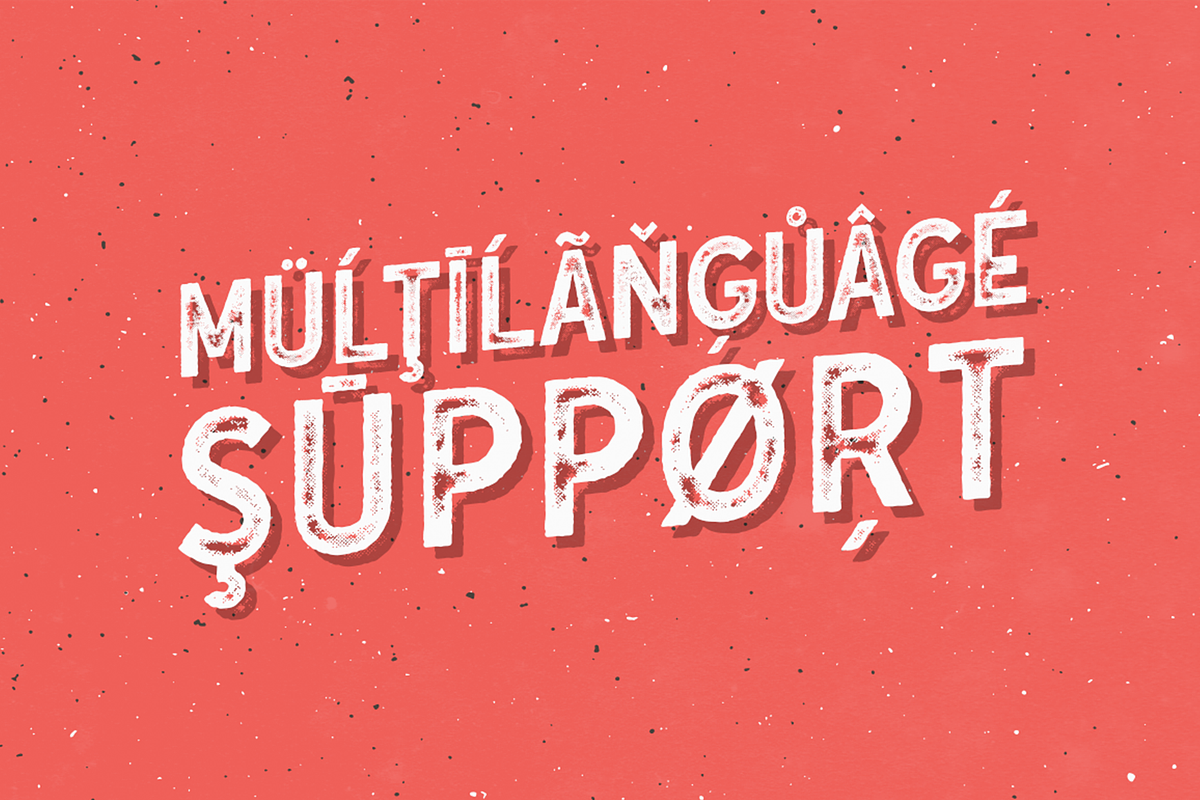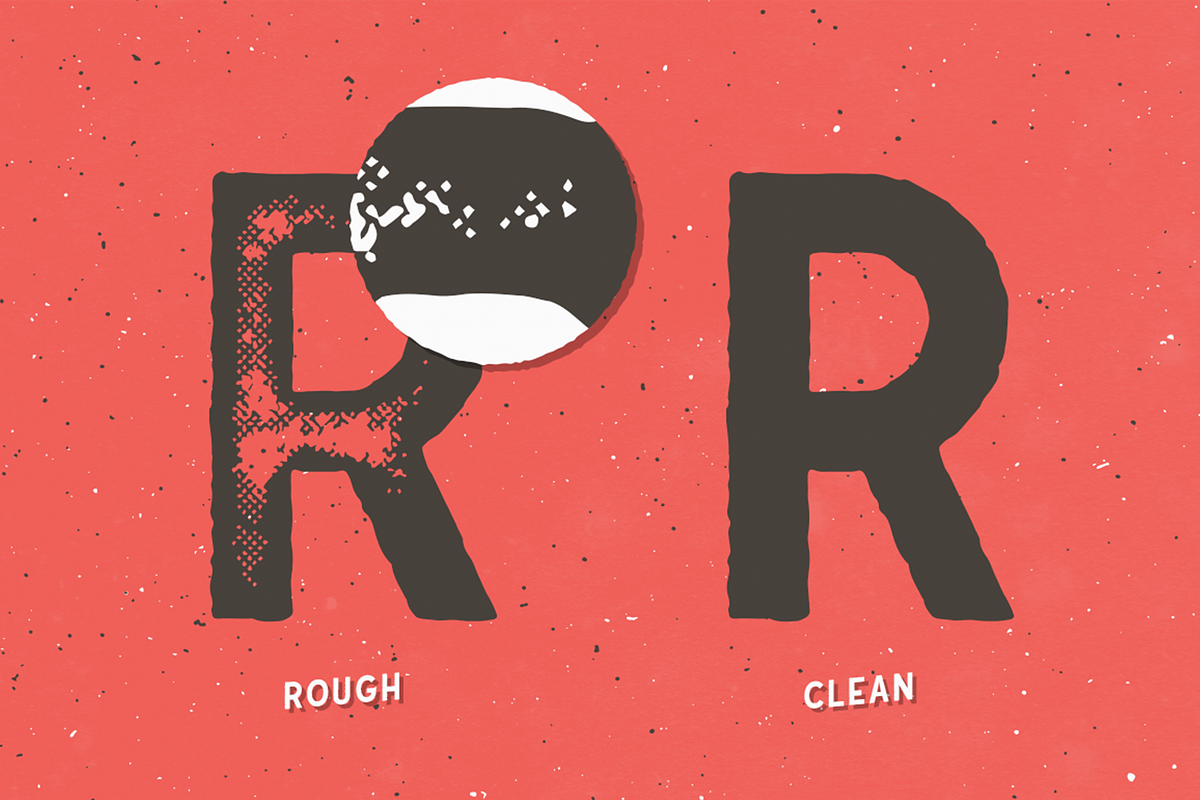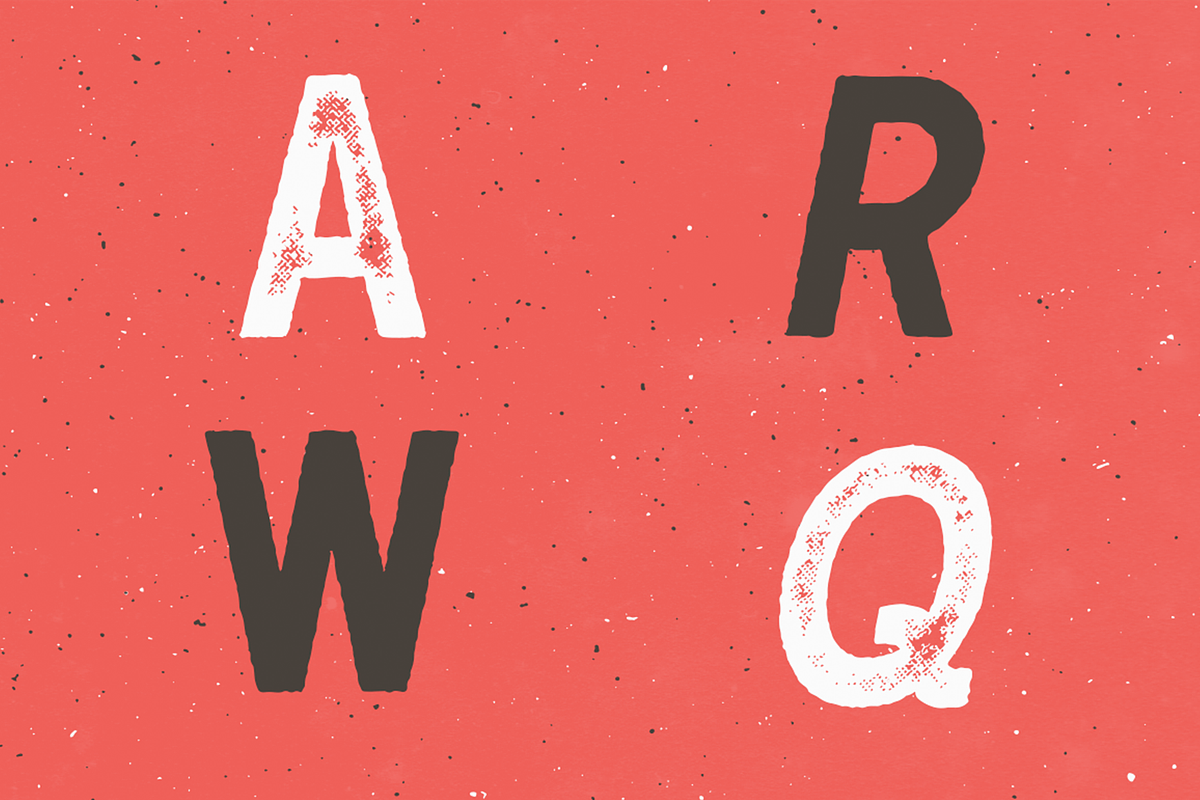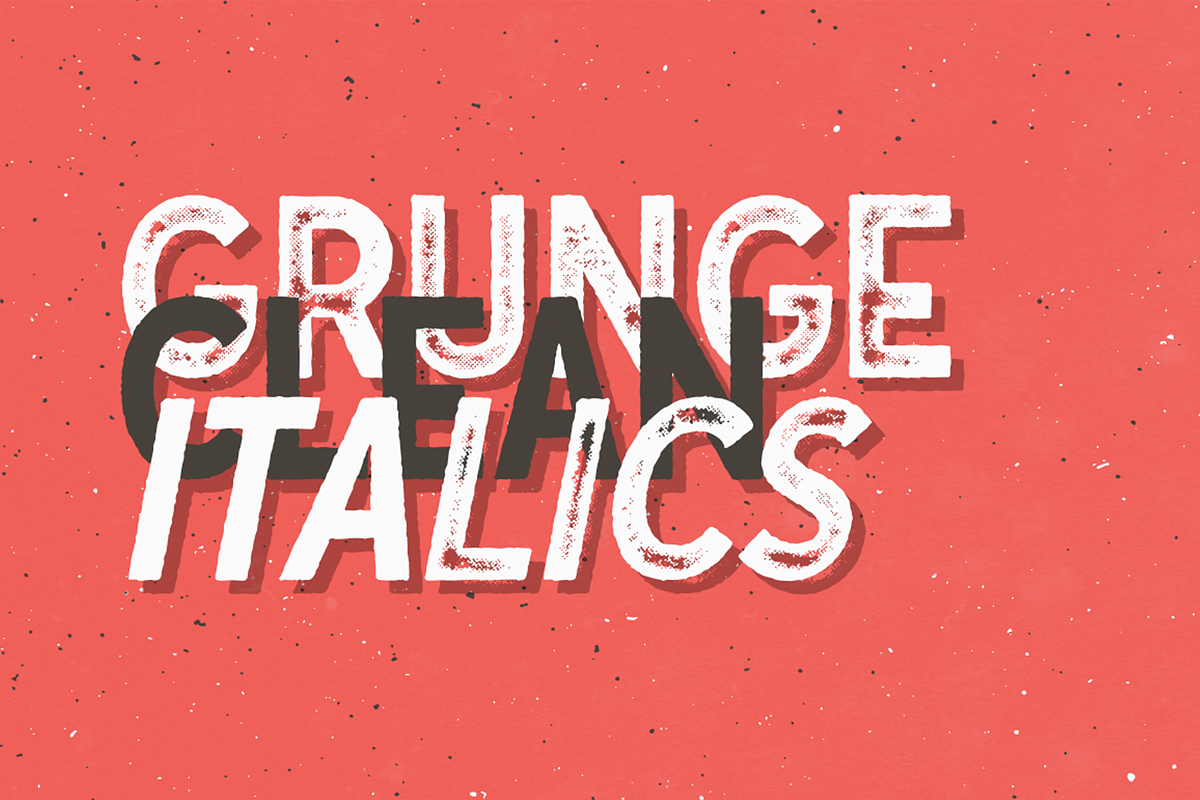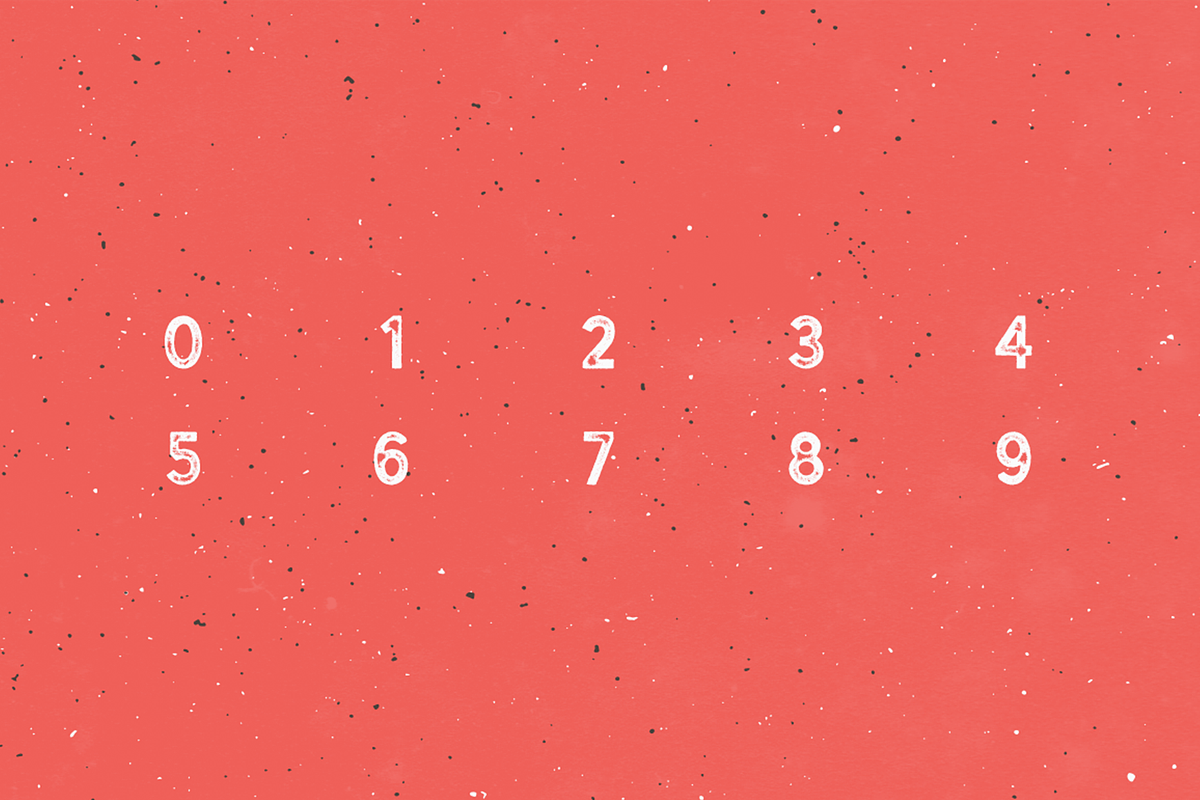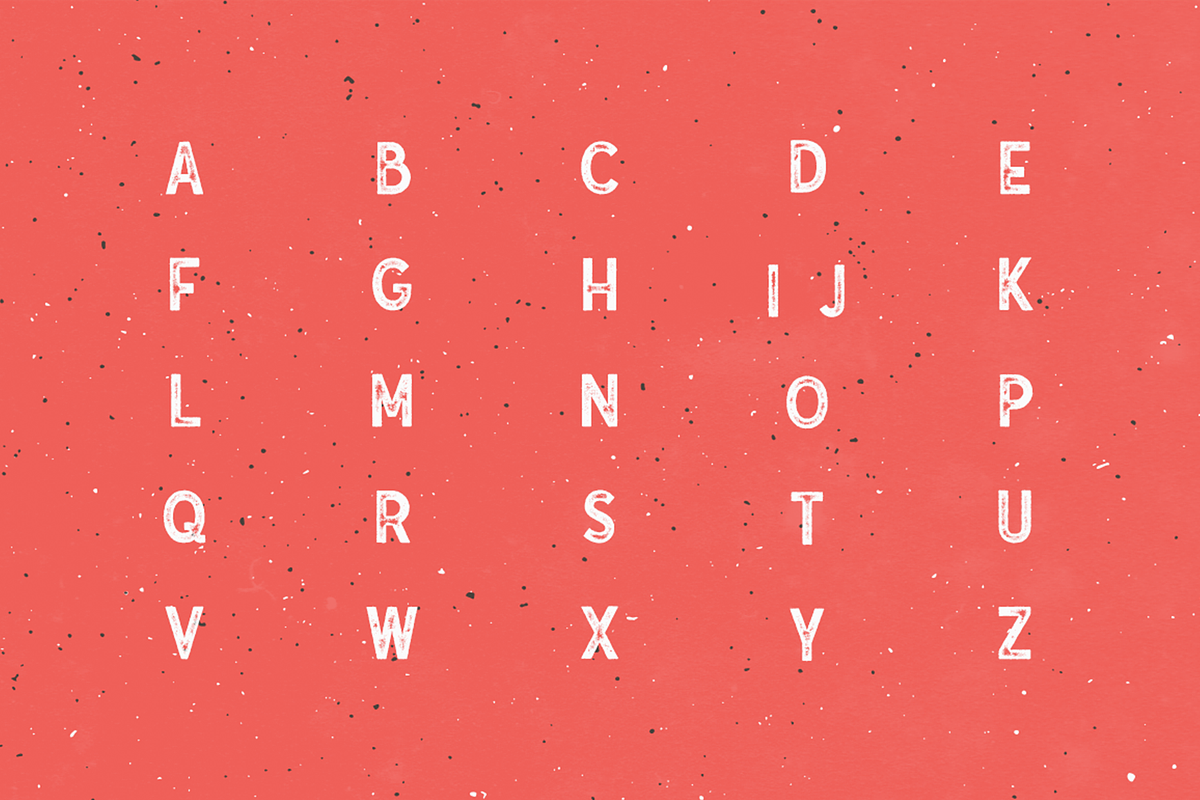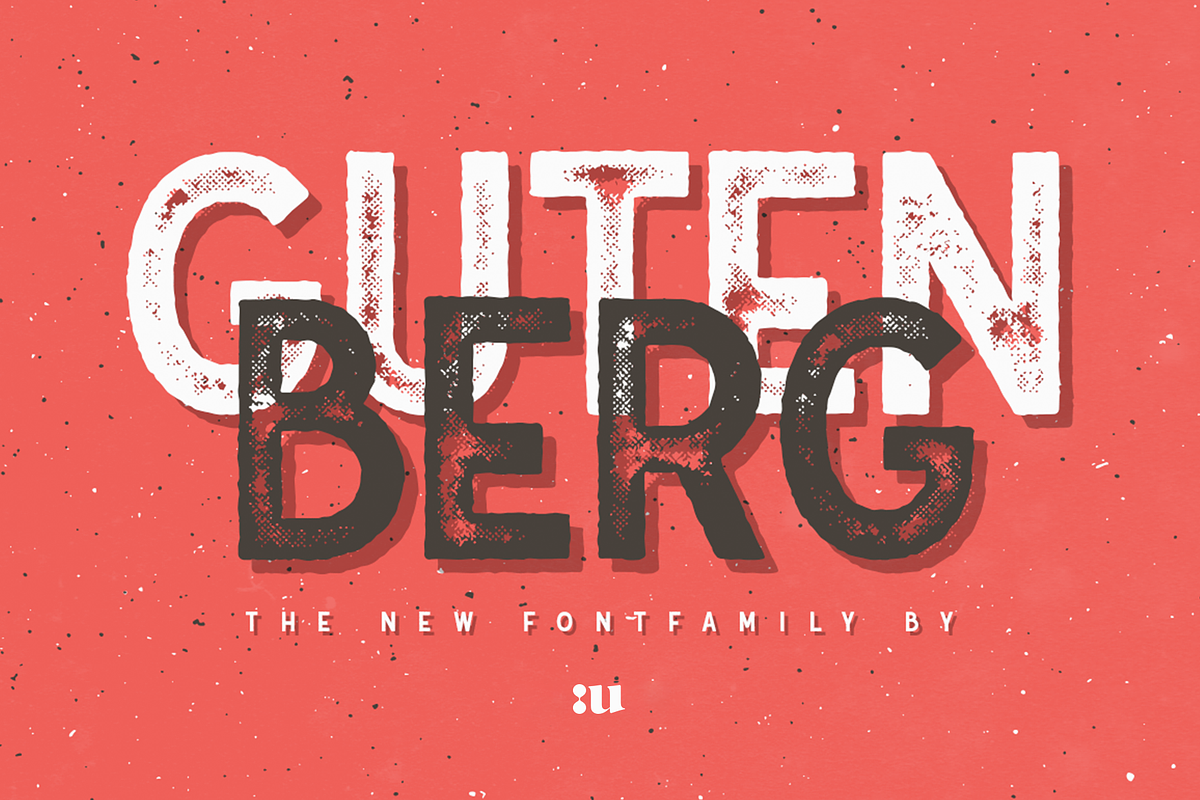
Gutenberg - Font Family
Gutenberg - Font Family by Unio Designs is a font selected for branding, posters, packaging, typography.
- Gutenberg Clean Regular
- Gutenberg Regular
- Gutenberg Italic
- Gutenberg Clean Italic
Gutenberg - Font Family by Unio Designs fits naturally into Branding, posters, packaging, typography.